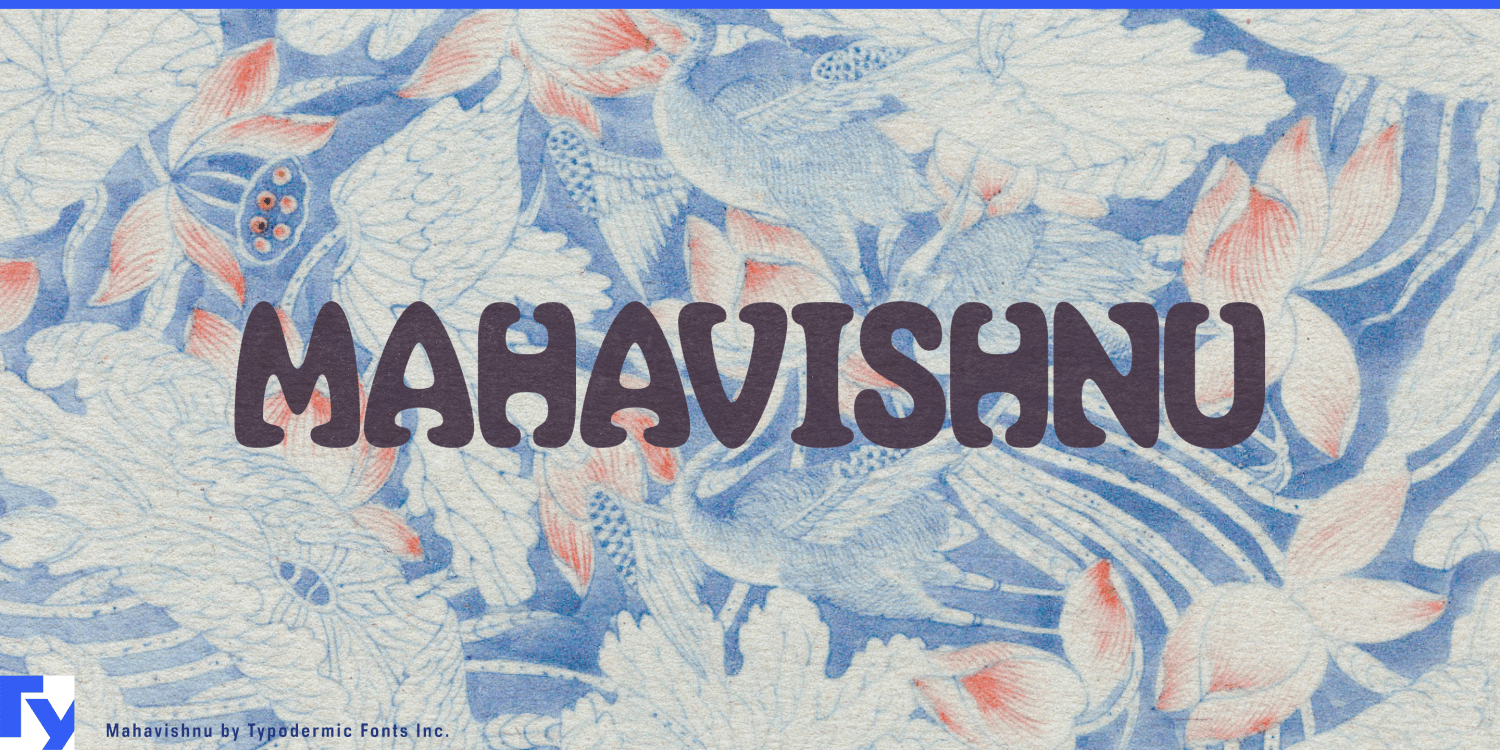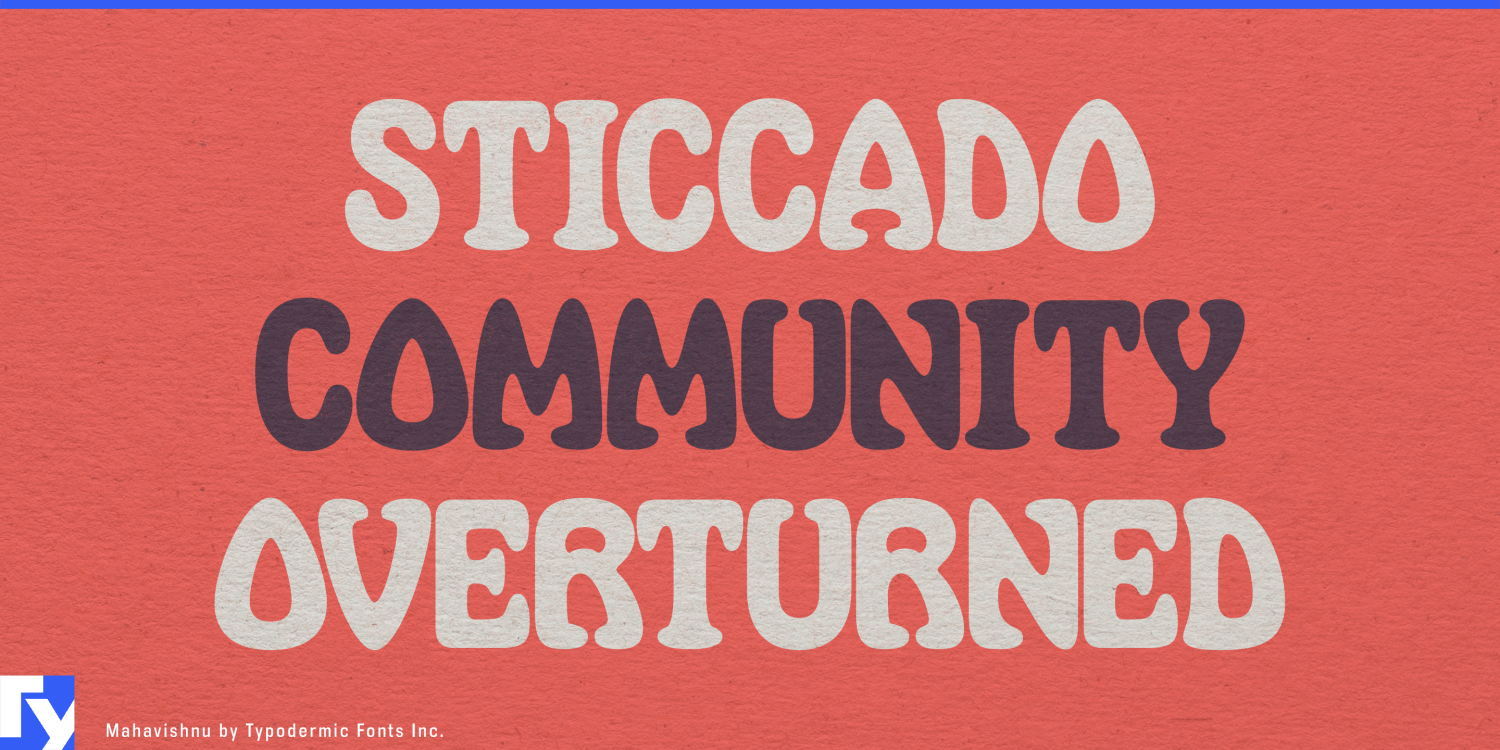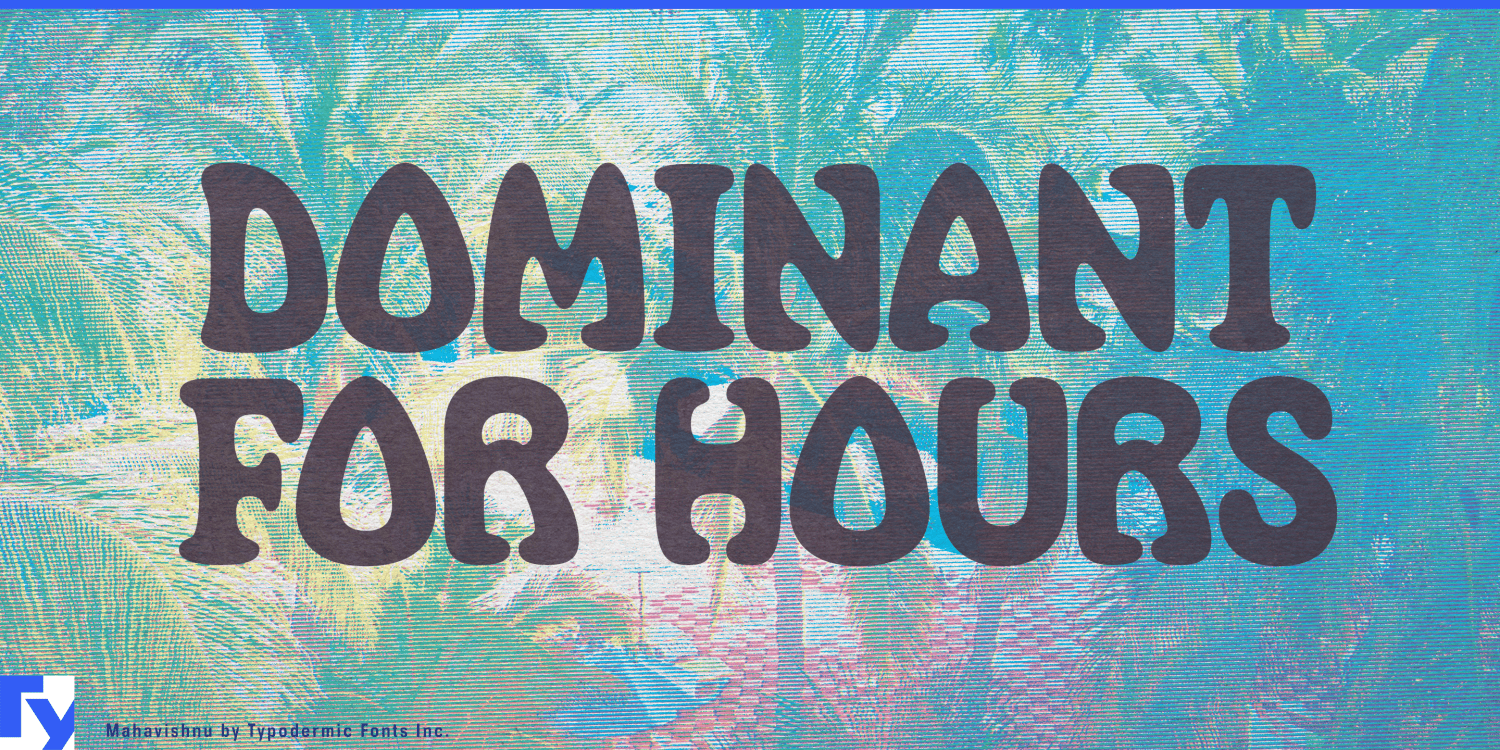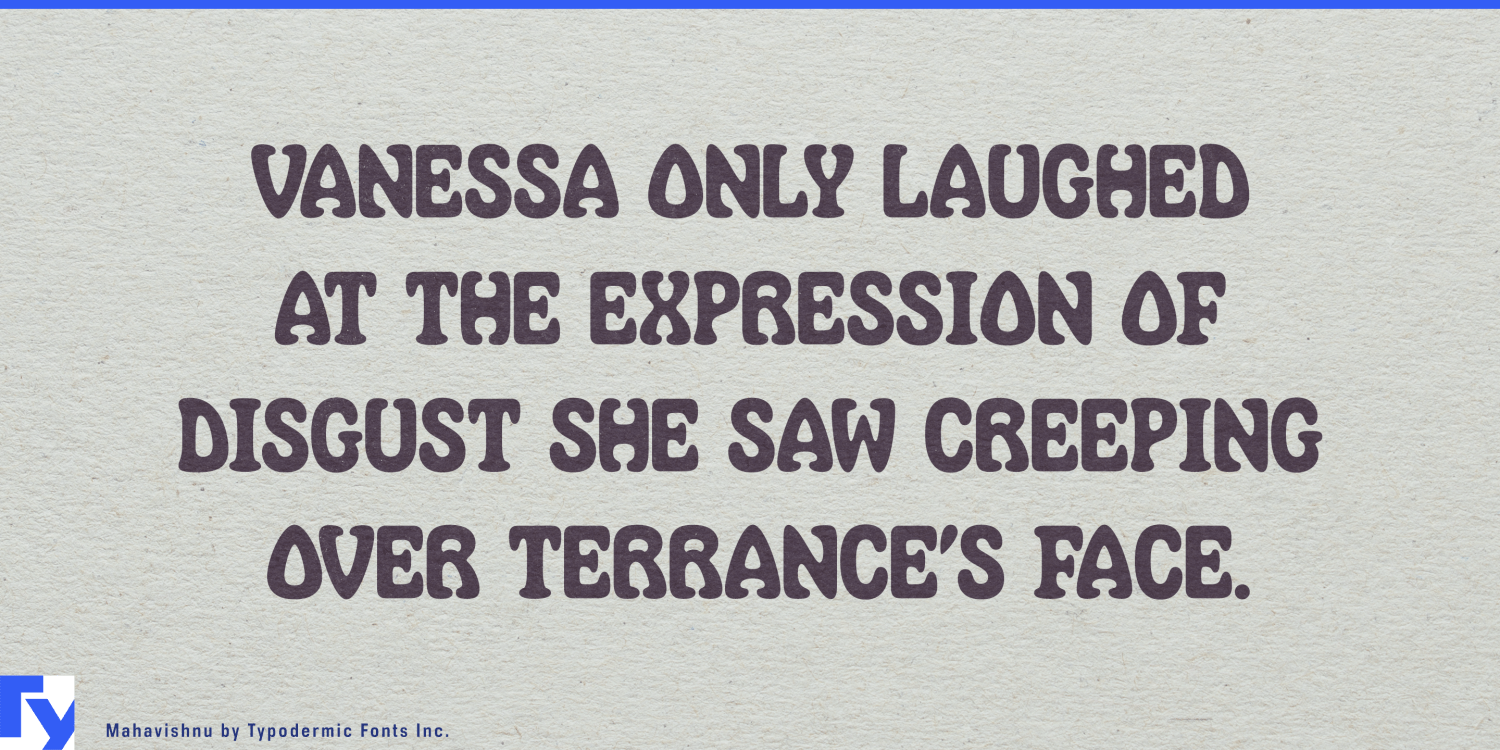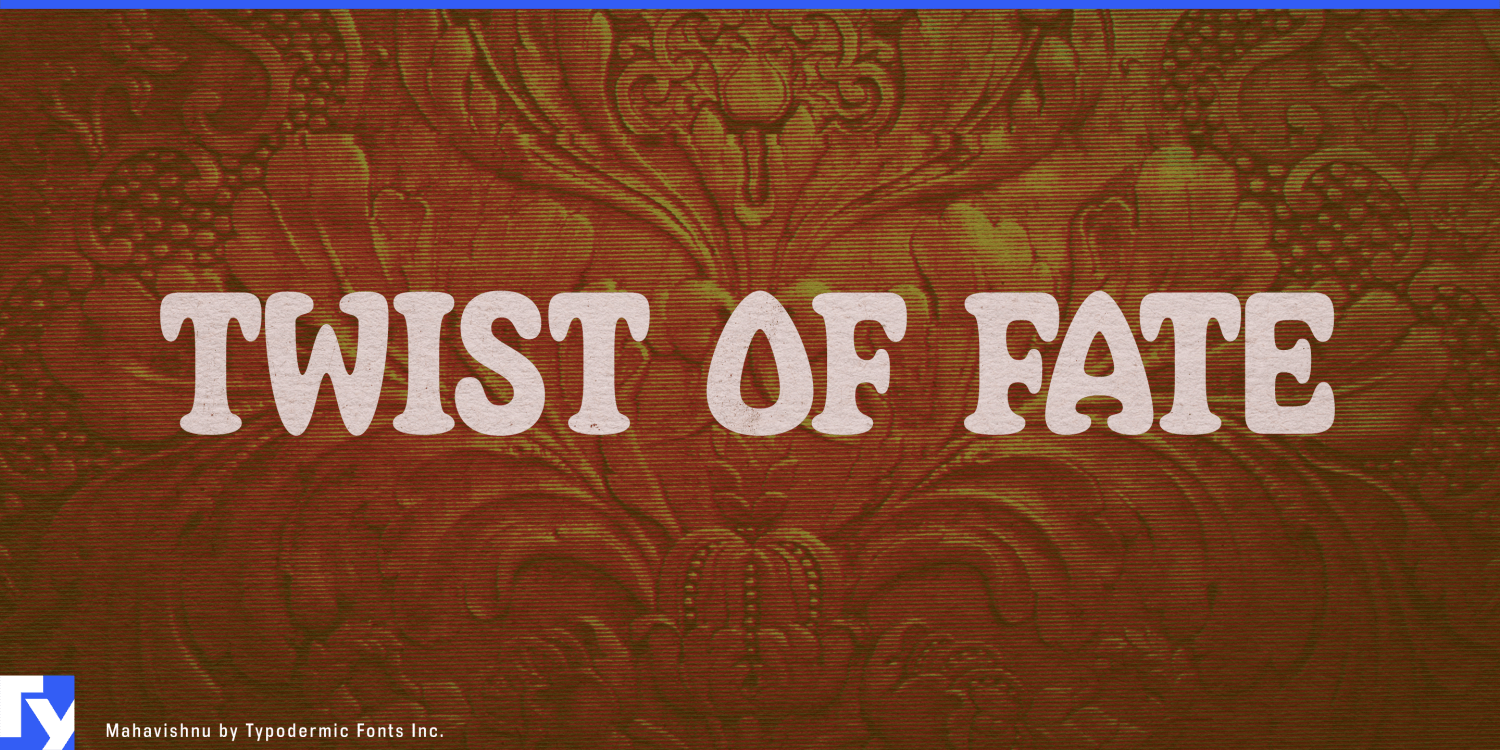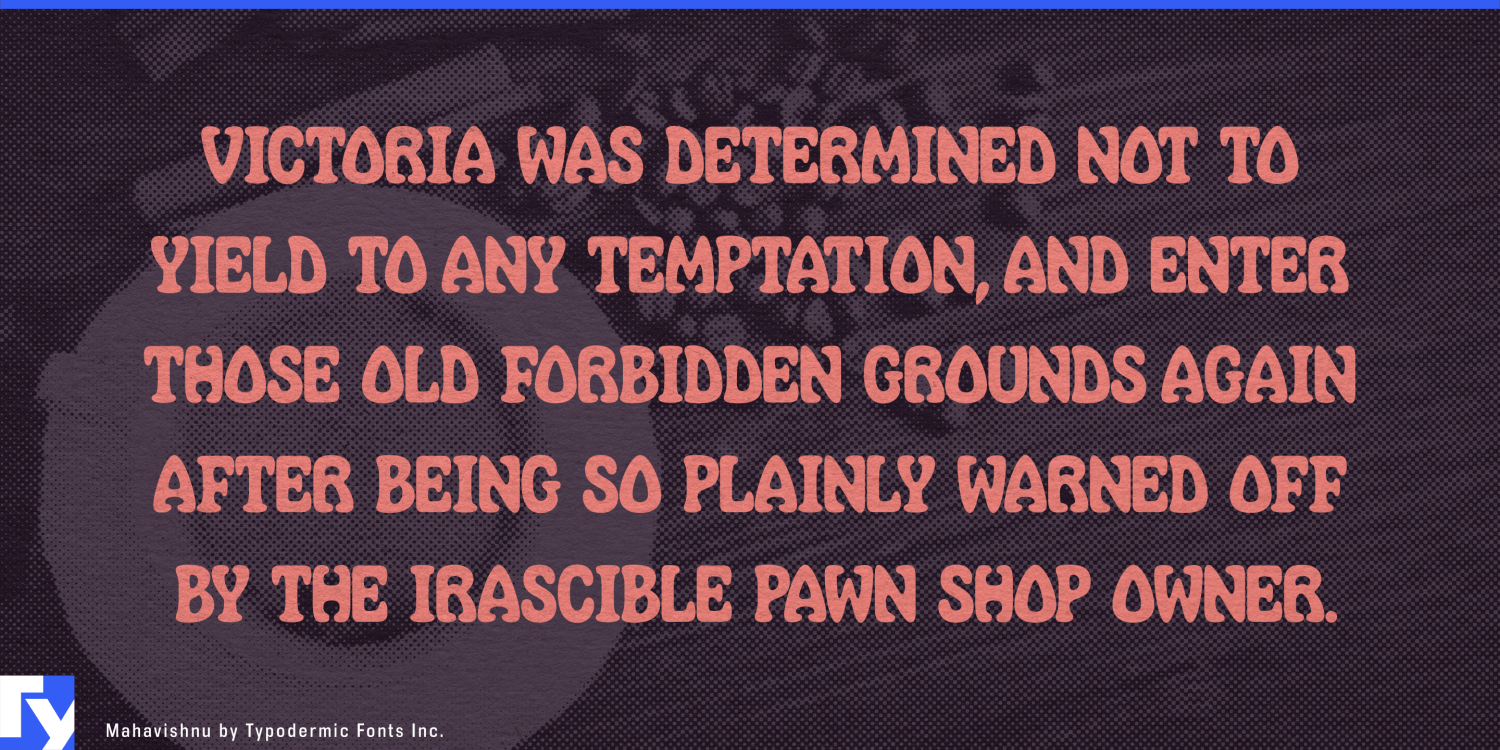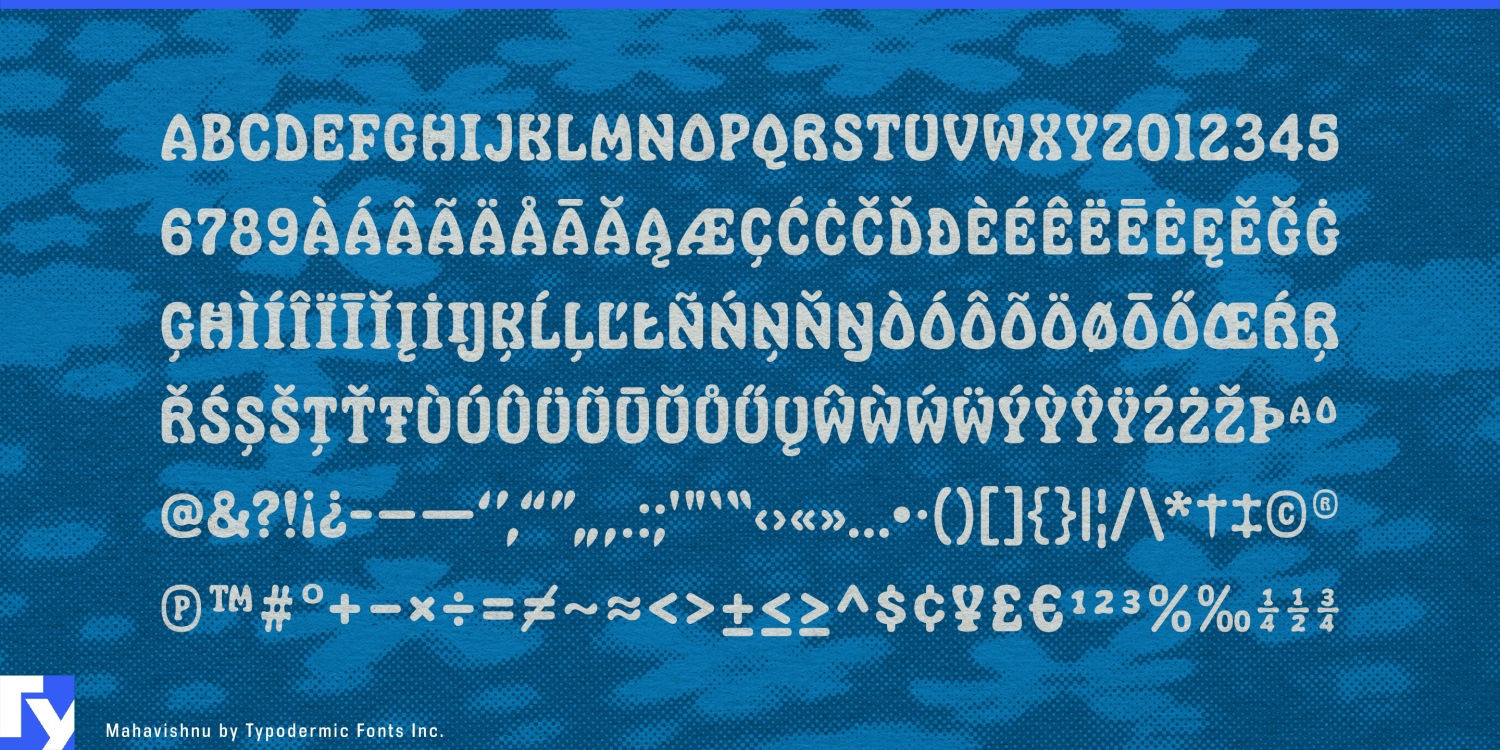
Mahavishnu
Font Family by Typodermic
Organic display lettering can be difficult to use in premium branding. Push the curves too far and fashion starts looking psychedelic; loosen the drawing and a yoga studio can drift toward hippie culture; add too much handmade texture and an expensive spa can suddenly feel rustic. Mahavishnu occupies a narrower space. Its swollen, flowing forms are expressive and sensuous, but controlled enough for settings where casual bohemian lettering would send the wrong signal.
That makes Mahavishnu especially useful for fashion, fragrance, jewelry, beauty, resort wear, designer swimwear, eyewear, handbags, and footwear. Use it for collection names, campaign headlines, runway-show titles, fashion-film credits, lookbook covers, invitations, hangtags, shopping bags, fragrance boxes, boutique displays, and retail-window graphics. Paired with quieter typography for product information and supporting copy, Mahavishnu becomes the distinctive display layer of a more restrained identity.
The same quality solves a related problem in premium wellness. High-end yoga and Pilates studios often want warmth, movement, and a connection to the body without looking like budget retreats. Resort spas, urban day spas, massage studios, bodywork programs, thermal bathing facilities, and integrated wellness clubs need relaxation without drifting toward either medical sterility or incense-and-tie-dye informality. Mahavishnu can carry studio names, signature classes, treatment collections, ritual names, apparel, amenity packaging, wall graphics, and campaign headlines while a neutral companion face handles schedules, prices, descriptions, and booking information.
Mahavishnu grew out of the atmosphere of 1970s jazz fusion and psychedelic lettering, but its forms were drawn with a quieter rhythm. The letters swell, taper, pinch, and interact with their neighbors in ways that feel shaped rather than rough or spontaneous. That ancestry is still visible, especially when color and imagery encourage it, but it does not dictate the result.
Context changes Mahavishnu dramatically. Surround it with saturated color and swirling graphics and its psychedelic side comes forward. Give it generous space, restrained color, fashion photography, foil, embossing, or polished packaging and the same curves become sculptural. That flexibility makes Mahavishnu useful when a premium brand needs organic display typography without the usual hippie baggage.